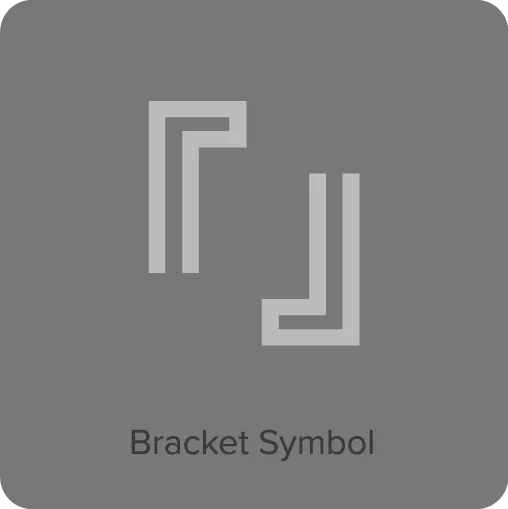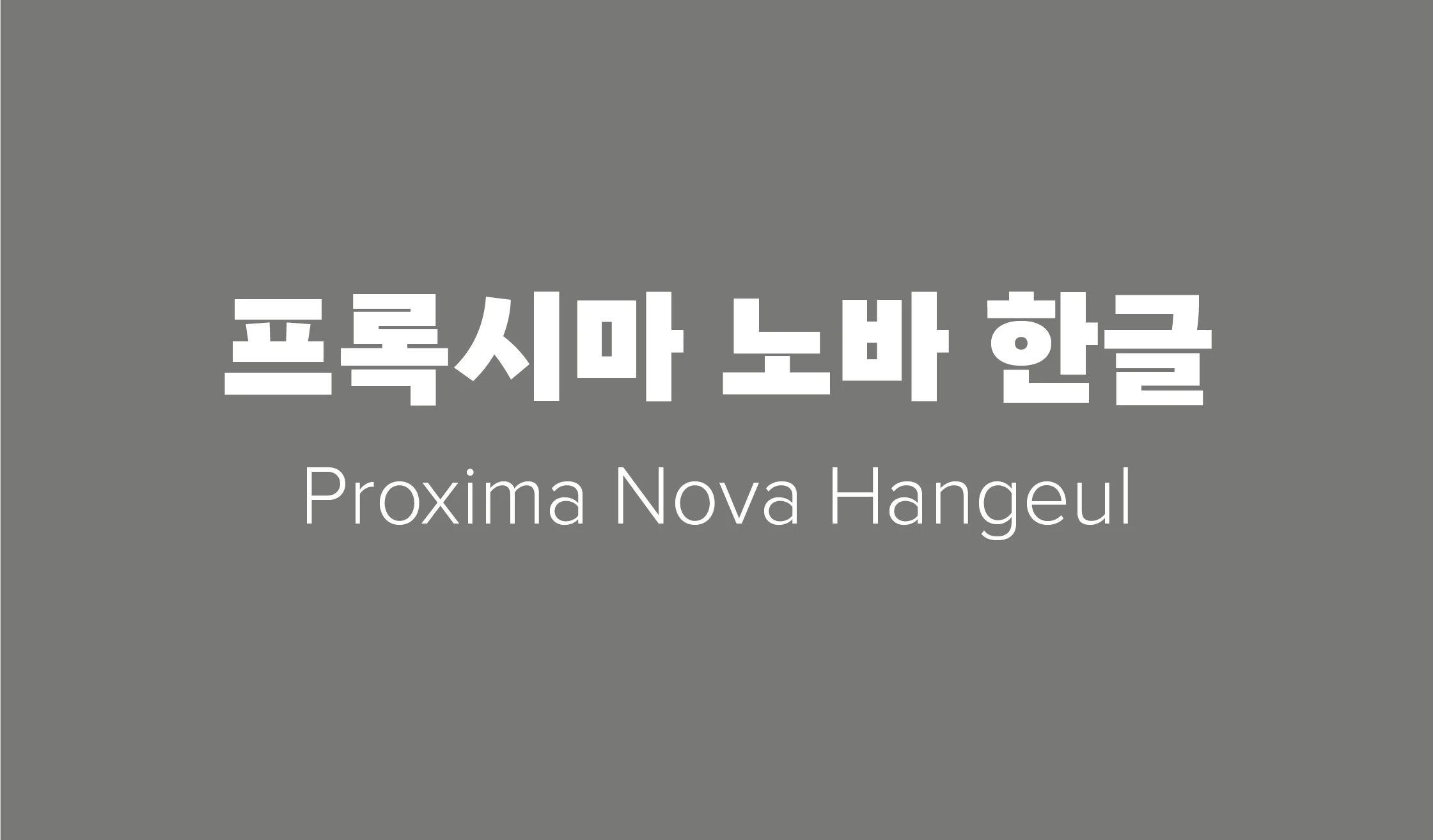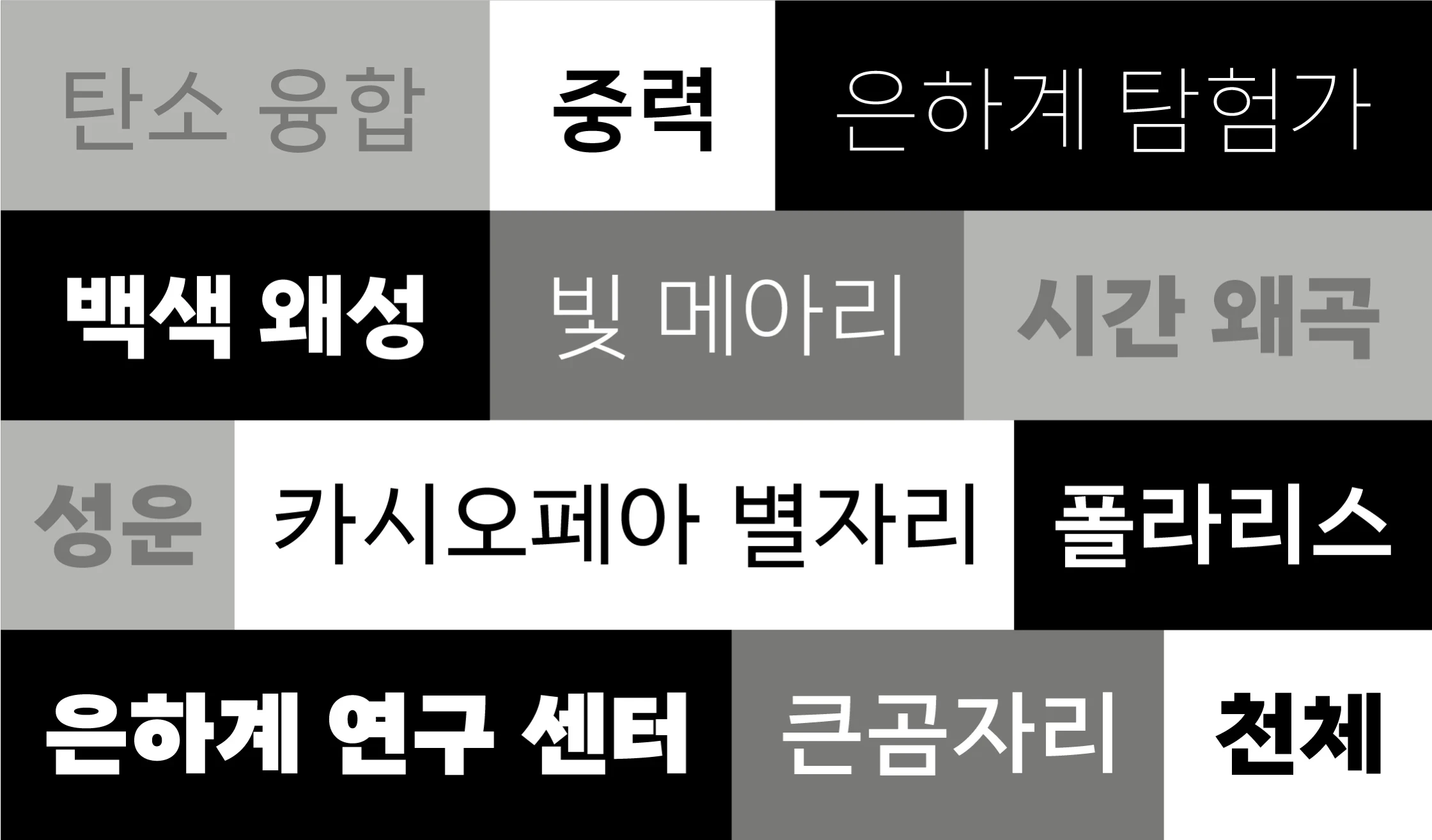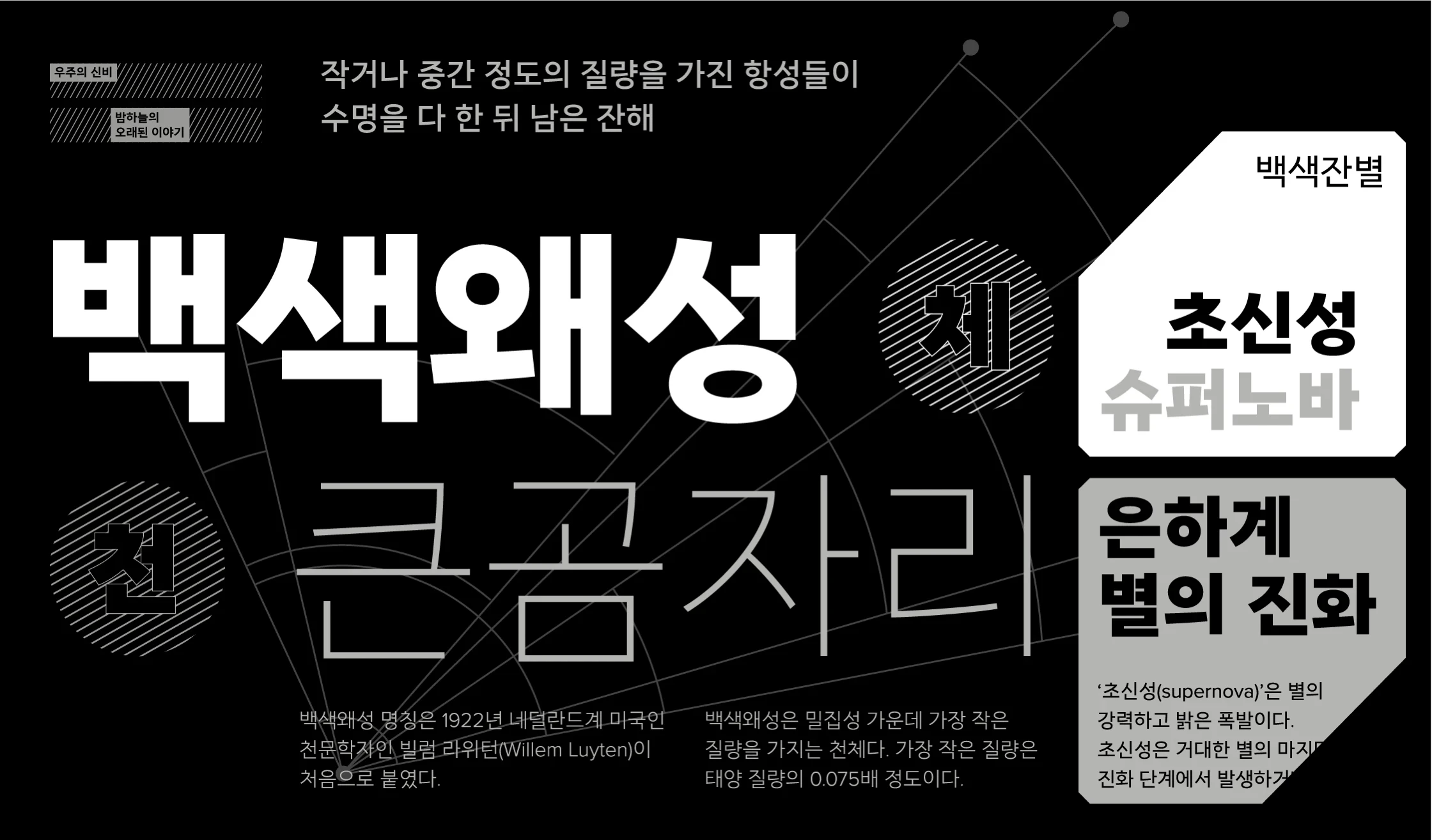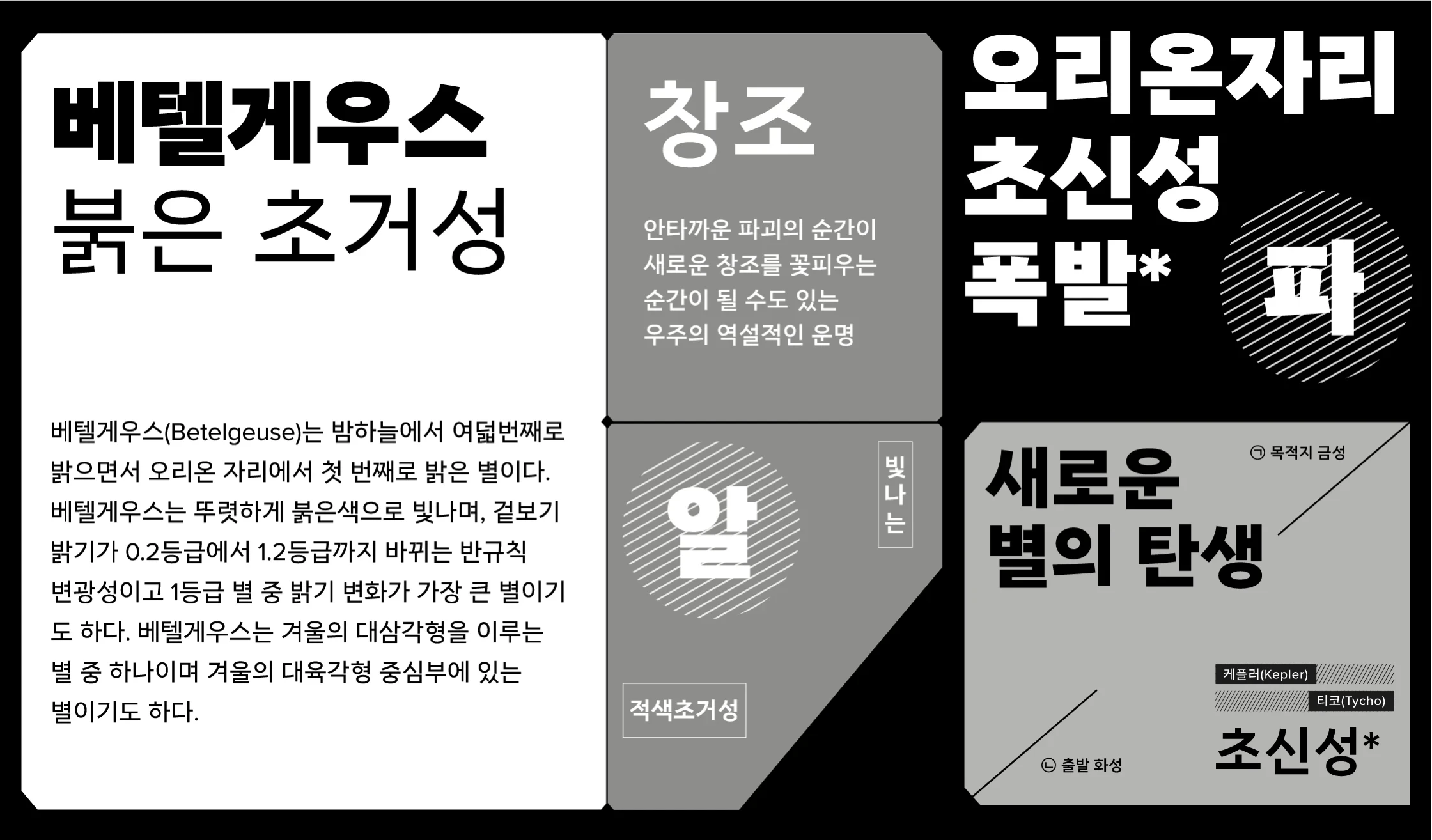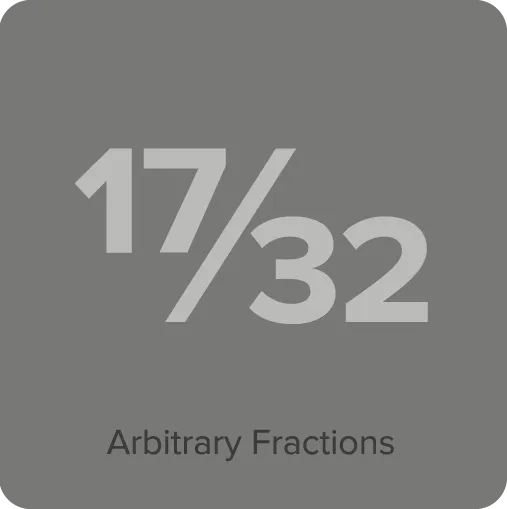
Proxima Nova Hangeul (2024) was designed by lo-ol Type Studio for the Proxima Super Nova collection. Hangeul — the alphabet used for the Korean language — is structurally larger than Latin, requiring adjustments to align visually with the original and maintain the distinctive script’s integrity. Also important is balancing grotesque and geometric sans details to capture the essence of Proxima Nova. Available in eight weights — Thin to Black — this growing family of typefaces is ready to become even more popular worldwide.
Proxima Nova Hangeul Features
- 8 weights: Thin, Light, Regular, Medium, Semibold, Bold, Extrabold, and Black.
- Matching small caps for all weights.*
- Case-sensitive forms for all-caps settings.*
- Lining and old style figures (proportional and tabular).*
- Discretionary ligatures.
- Full “f” ligature set (ff, fi, fl, ffi, ffl, etc.).*
- Alternate characters (a, l, y, G, slashed zero, and seriffed 1).*
- Korean won (₩), circled Hangeul (㉦), and white bracket (『』) symbol.
- Automatic arbitrary fractions.*
- Automatic ordinals.*
- Extended language support for Hangeul, most Latin-based Western and Central European languages. Also includes the capital German sharp S.
- Extended currency support.